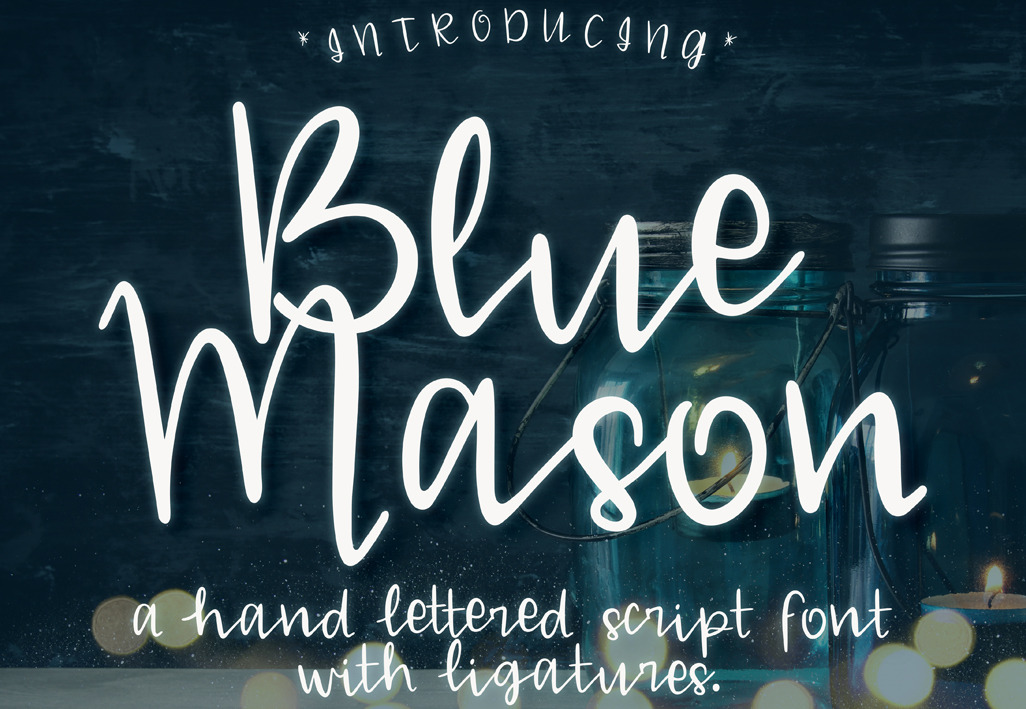
Blue Mason Script Font
Inspired by my passion for hand-lettering, Blue Mason script will give a delightful hand-lettered feel to any project! Includes .otf, .ttf, and .woff files. Please install the .otf for best results!
Font includes: UPPERCASE, lowercase, Numbers & Symbols, Western European Glyphs, and Ligatures